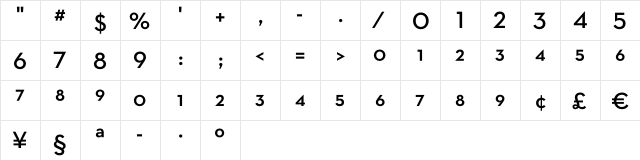
Neutra Text Light Frac Demi Font Preview
Neutra Text Light Frac Demi
| Designer | Christian Schwartz |
Design Context for Neutra Text Light Frac Typeface
Neutra Text Light Frac is a composed and adaptable typeface that performs quietly and consistently across a wide range of design contexts. Its slender proportions lend an understated elegance to any composition.